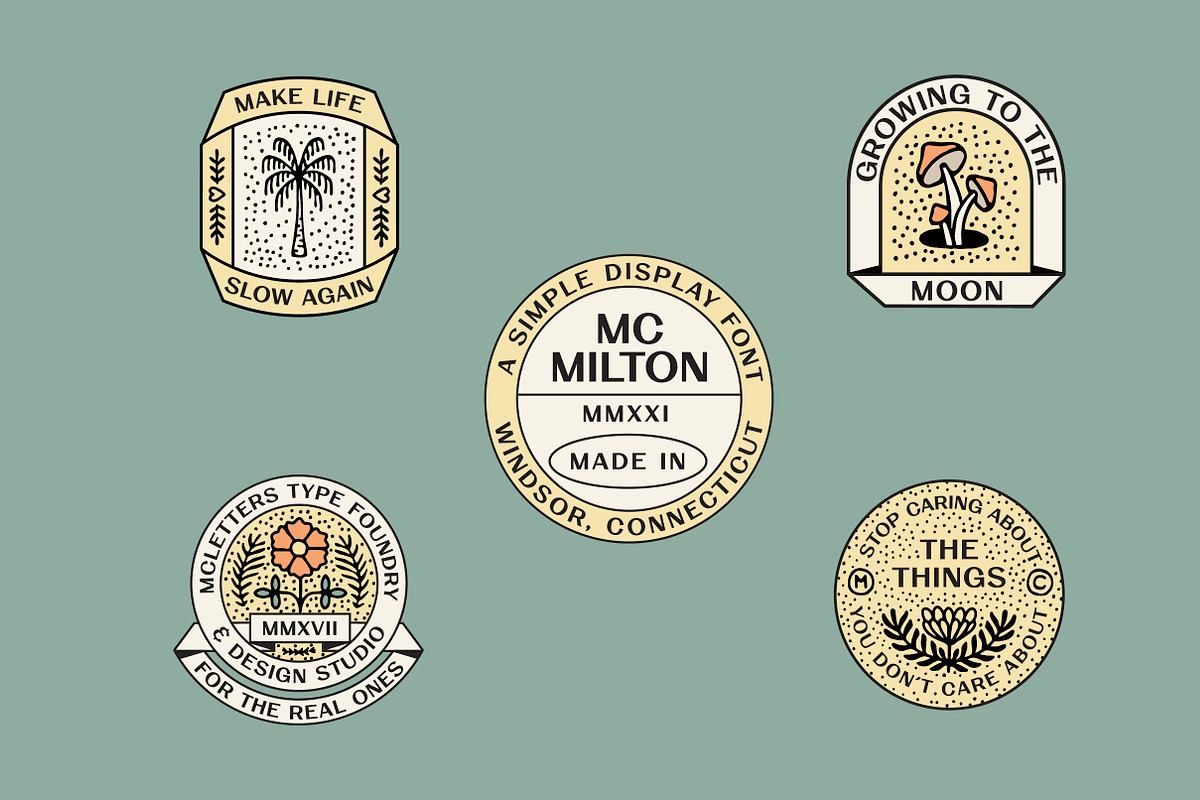
MC Milton Font Free Download is a clean and professional sans serif typeface designed for versatility and modern appeal. With its smooth curves, well-balanced proportions, and excellent readability, MC Milton is perfect for branding, corporate identities, web design, packaging, editorial layouts, and business presentations.
This font delivers a minimalist yet confident feel—ideal for both headlines and body text. Whether you're designing a tech startup’s logo, a sleek website interface, or modern print collateral, MC Milton brings clarity and sophistication to your project.
Designers love MC Milton for its simplicity, functionality, and adaptability across both digital and print platforms. Want a font that’s as reliable as it is stylish? Download MC Milton Font Free Download and give your designs a smart, polished voice.